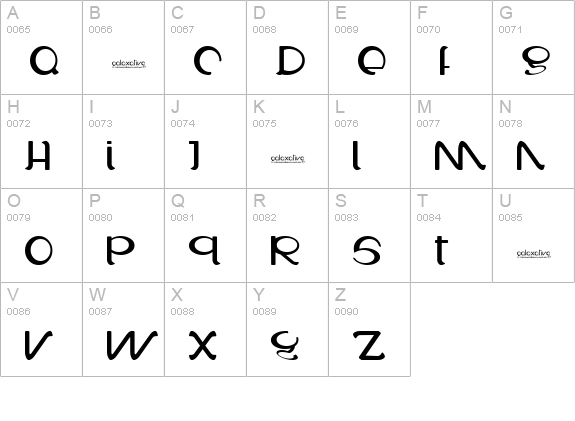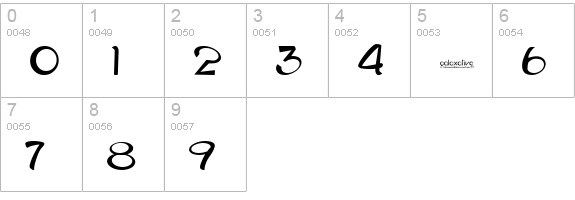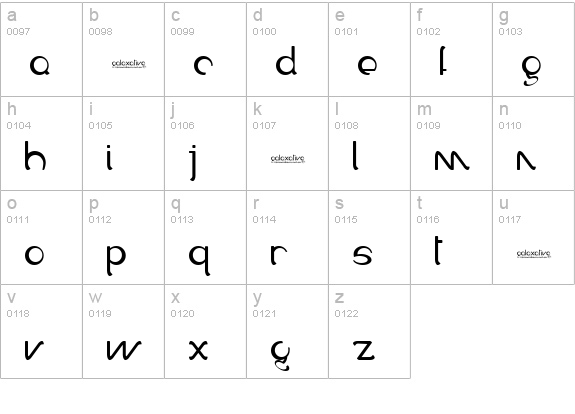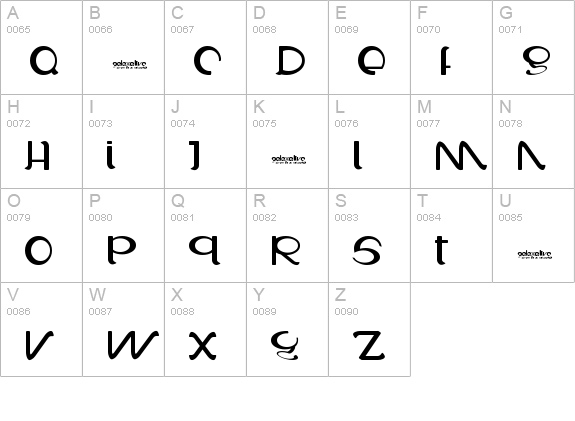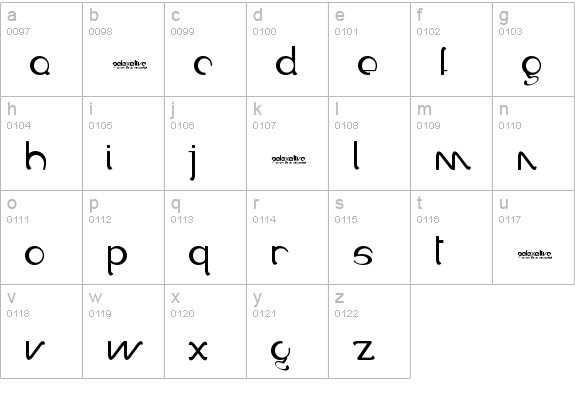
Galaxative Font Details
Introducing Galaxative font, a mesmerizing typeface that will transport you to a celestial realm of typography. With its captivating curves and enchanting lines, this font is sure to leave a lasting impression on any design project. Galaxative font is the perfect blend of elegance and modernity, making it ideal for a wide range of creative endeavors. Whether you're designing a logo, poster, website, or even a book cover, this font will instantly elevate your work to new heights. What sets Galaxative font apart is not only its stunning aesthetics but also its versatility. It can effortlessly adapt to various styles, from sleek and minimalist to bold and expressive. This makes it a must-have for designers looking to make a statement. And the best part? Galaxative font is completely free! Yes, you read that right. This incredible font is freely available to download at FontsMarket.com. Say goodbye to the limitations of expensive fonts and embrace the freedom of Galaxative font. So why wait? Embark on a typographic journey like no other with Galaxative font. Unleash your creativity and let this font guide you through the vast expanse of design possibilities. Download Galaxative font today and discover a universe of endless artistic opportunities.